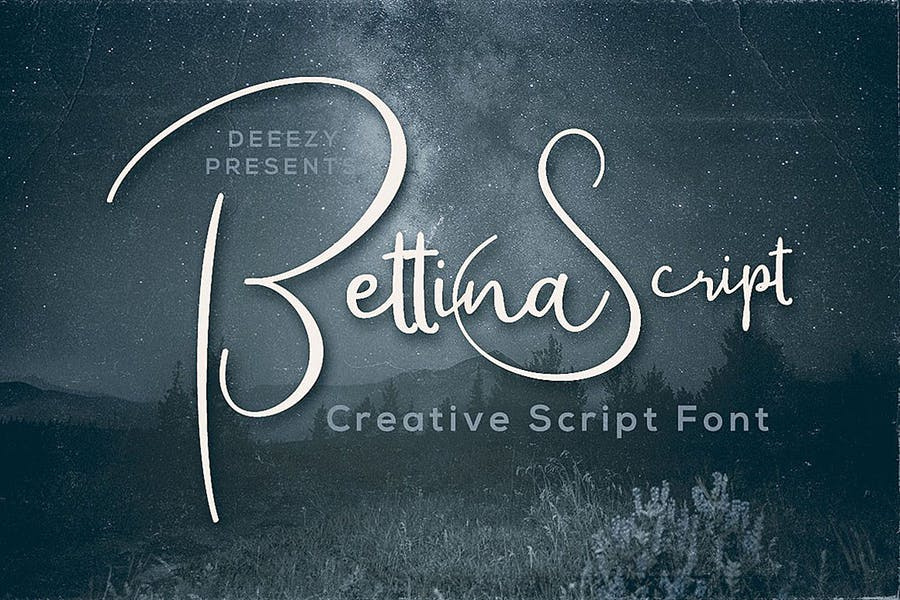
Bettina Script Font
Bettina Script Font is perfect for elegant wedding invitations, boutique fashion branding, sophisticated personal stationery, luxury beauty salon marketing, refined lifestyle blogs, graceful event planning, upscale feminine communications, and sophisticated romance-themed designs.
What makes Bettina Script Font exciting is its refined elegance that embodies sophisticated femininity and timeless grace with aristocratic charm and personal sophistication. The font features flowing letterforms with delicate flourishes and sophisticated character variations that evoke silk ribbons, elegant handwriting, and the refined artistry of sophisticated correspondence. Its distinctive elegant styling and feminine appeal communicate luxury, refinement, and sophisticated taste, making every message feel crafted with elegance and touched by the sophisticated beauty of refined feminine expression.
The Bettina Script Font family includes regular weight with uppercase and lowercase letters, numerals, punctuation marks, and special characters. Premium versions often feature stylistic alternates and elegant flourishes that enhance the sophisticated, refined aesthetic perfect for luxury and feminine branding applications.
This exquisite elegant typeface brings instant sophistication and refined femininity to any luxury-focused project. Bettina Script Font Free Download offers exceptional value for premium brands and sophisticated businesses targeting discerning women who appreciate refined aesthetics, elegant style, and sophisticated feminine expression.
The sophisticated character of Bettina Script Font makes it particularly valuable for luxury wedding planners, high-end beauty brands, and sophisticated lifestyle services. Its excellent readability ensures elegant messaging and luxury communications remain clear while maintaining the distinctive refined aesthetic that appeals to women seeking sophisticated experiences and elegant personal expression.
Luxury brand marketers appreciate how Bettina Script Font effortlessly conveys sophisticated elegance and feminine refinement. The font's flowing proportions and elegant details create beautiful brand materials that establish emotional connections with audiences who value sophisticated style, refined taste, and the elegant expression of sophisticated feminine beauty.
The versatile sophistication of this typeface extends to luxury fashion consulting, elegant gift companies, and sophisticated women's services where refined authenticity enhances luxury appeal and sophisticated positioning. Bettina Script Font Free Download provides creative professionals with an essential tool for developing memorable, elegance-driven designs that resonate with audiences who embrace sophisticated femininity, refined elegance, and the flowing beauty of sophisticated script typography in their luxury lifestyle and personal branding choices.